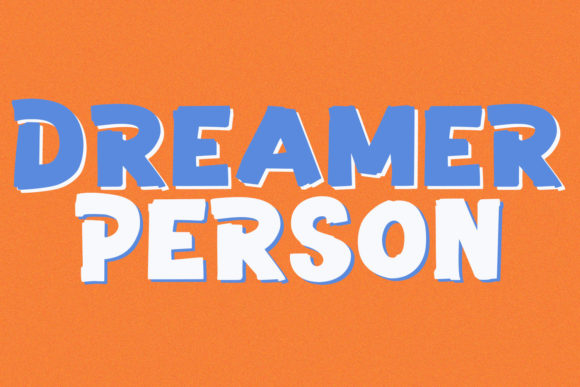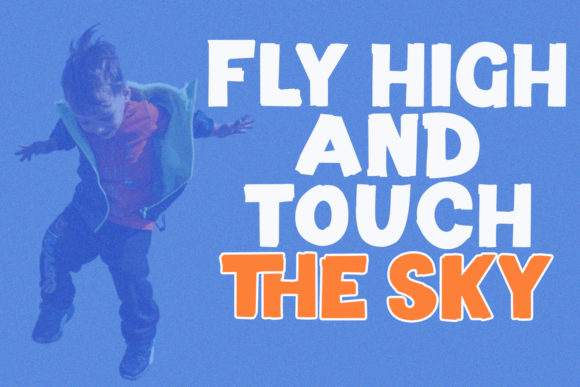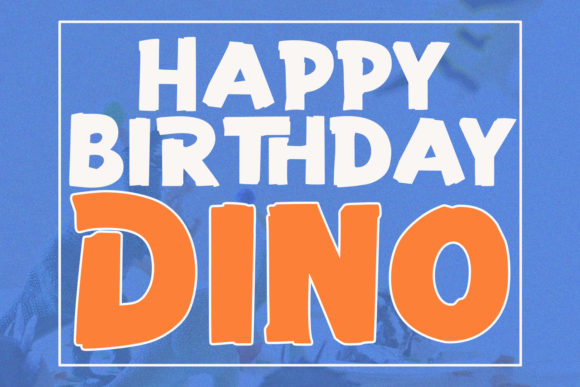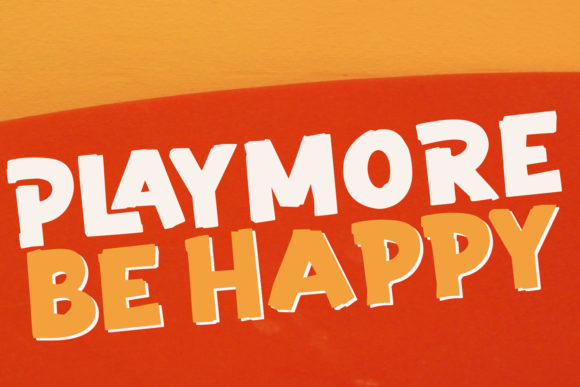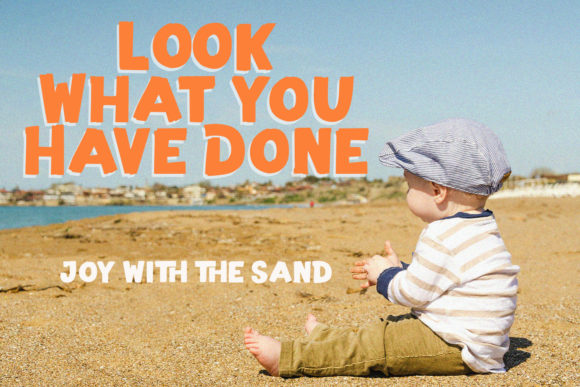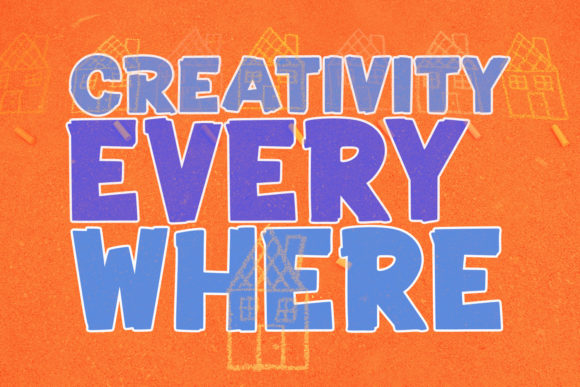
Introducing Blippys Font: The Ultimate Display Font for Creative Projects
Are you tired of using the same old fonts in your designs? Look no further than Blippys Font, a cartoonish and thick lettered display font that’s sure to elevate your creations. Whether you’re a designer, crafter, or simply someone who loves to dabble in creative projects, Blippys Font is an incredible asset to have in your font library.
What is Blippys Font?
Blippys Font is a unique and eye-catching display font that’s perfect for a wide range of projects. Its cartoonish and thick lettered design makes it stand out from more traditional fonts, adding a touch of whimsy and fun to any creation. Whether you’re designing a logo, creating a social media graphic, or crafting a DIY project, Blippys Font is sure to make your work pop.
Key Features of Blippys Font
- Cartoonish design: Blippys Font has a playful, cartoonish design that’s sure to appeal to anyone who loves fun and quirky fonts.
- Thick lettering: The font’s thick lettering makes it easy to read and adds a bold touch to any design.
- Versatile: Blippys Font can be used for a wide range of projects, from logos and social media graphics to DIY crafts and more.
- Easily readable: Despite its bold design, Blippys Font is easy to read, making it perfect for headlines, titles, and other applications where readability is key.
Why You Need Blippys Font in Your Library
So why should you add Blippys Font to your library? For starters, its unique design makes it a great way to add some personality to your projects. Whether you’re designing for a client or working on a personal project, Blippys Font is sure to make your work stand out. Additionally, its versatility means you can use it for a wide range of projects, from fun and playful designs to more serious and professional applications.
- Logos and branding: Use Blippys Font to create a fun and memorable logo for your business or brand.
- Social media graphics: Add a pop of personality to your social media graphics with Blippys Font.
- DIY crafts: Use Blippys Font to add a personal touch to your DIY crafts, such as signs, banners, and more.
- Headlines and titles: Use Blippys Font to add a bold and eye-catching touch to your headlines and titles.
Tips for Getting the Most Out of Blippys Font
Here are a few tips for getting the most out of Blippys Font:
- Experiment with colors: Blippys Font looks great in a wide range of colors, so don’t be afraid to experiment and find the perfect hue for your design.
- Play with textures: Adding textures to your design can add an extra layer of depth and interest. Try pairing Blippys Font with a textured background or overlay.
- Mix and match: Don’t be afraid to mix and match Blippys Font with other fonts and design elements to create a unique look.